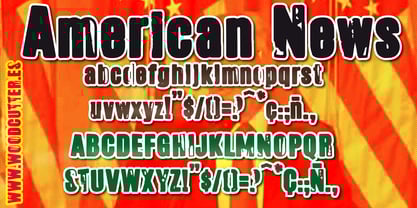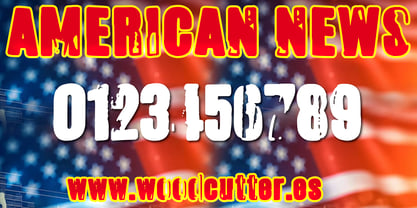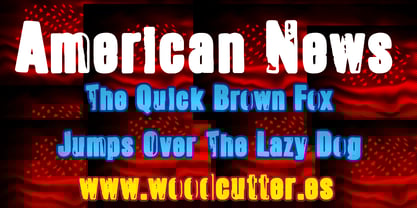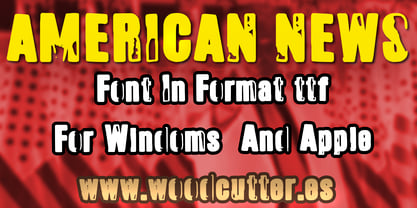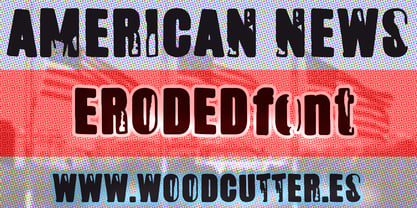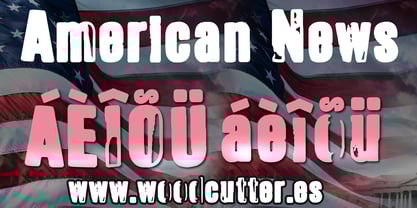
American News
by Woodcutter
The American News Font Family was designed by Jordi Manero and published by Woodcutter. American News contains 1 styles. More about this family
"American News" is a font in uppercase and lowercase with accents, mimicking the style of poorly printed letters from old publications. Each character features a distressed effect that gives it an authentic and vintage look, as if taken from a mid-20th-century newspaper. This design conveys a sense of urgency and nostalgia, making it ideal for editorial projects, retro covers, or designs that aim to capture the classic aesthetic of printed press. Its irregular appearance adds a unique and dynamic character, bringing personality and style to any project.